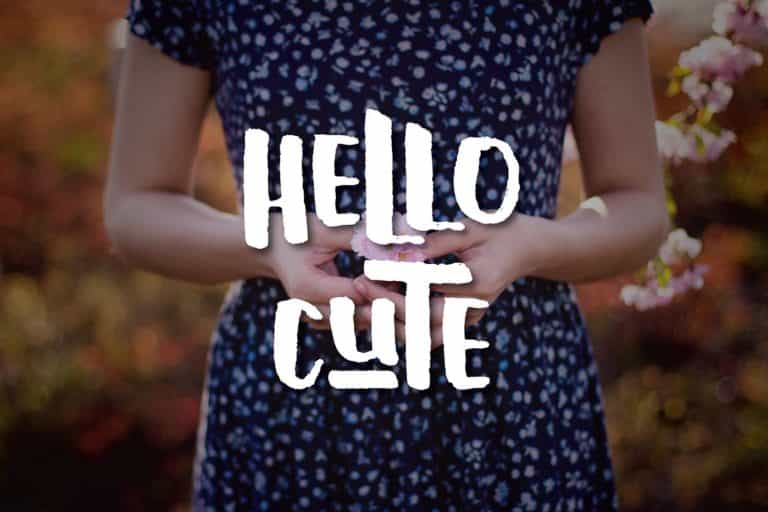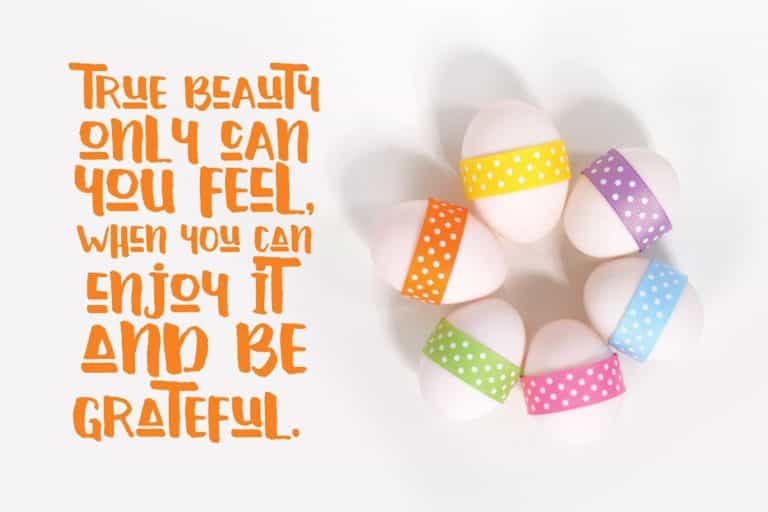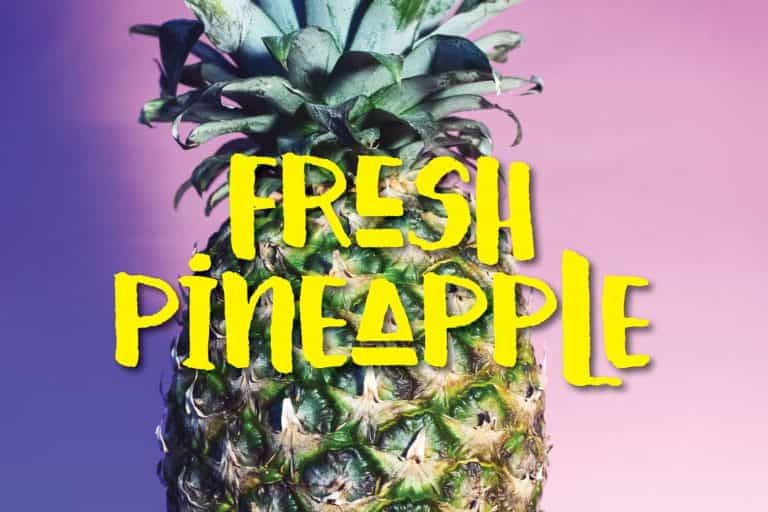
Discover Hello Cute Typeface, part of the Brush collection—a versatile and unique font perfect for adding a personal touch to your projects. Download it for free and enjoy crafting designs with style, from invitations to social media posts. This font is available exclusively for personal use, giving you the freedom to create without limits. Unlock your creativity with Hello Cute Typeface today!
Hello Cute Font has just been launched. It is created by Atjcloth Studio. Hello Cute a handmade font awesome, always new and modern style. Can be used for anything from promotional material and handwritten quotes, to product packaging, labels, logo newsletters, posters, merchandise and branding projects.